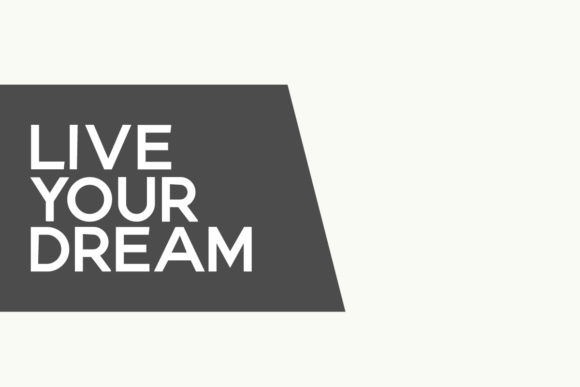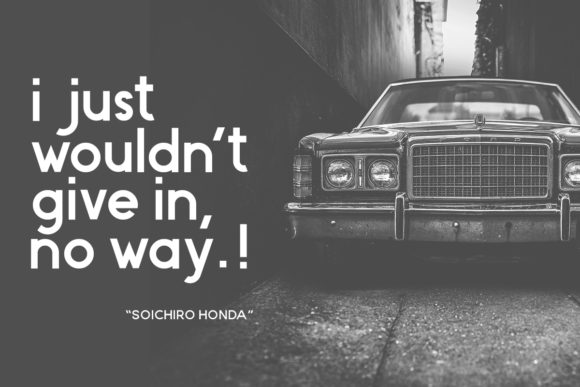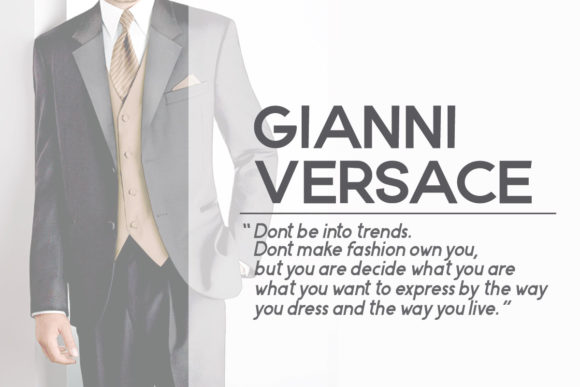
Rusty Original Font
About Rusty Original Font
Rusty Original features a balance of hard lines and smooth curves, modern touches, and dynamic letters. Get inspired by this extraordinary typeface.